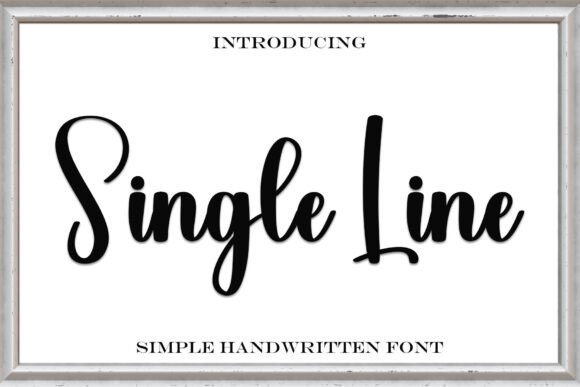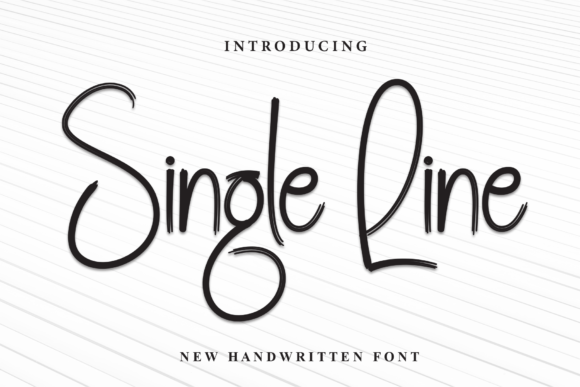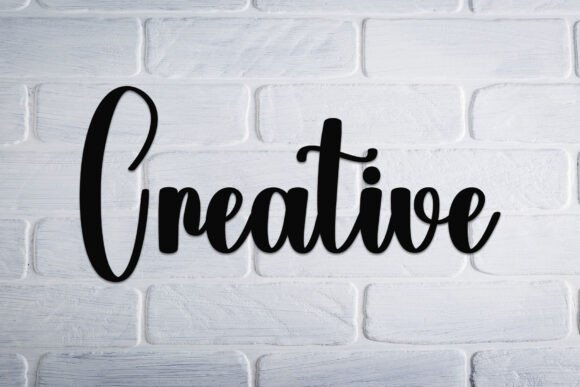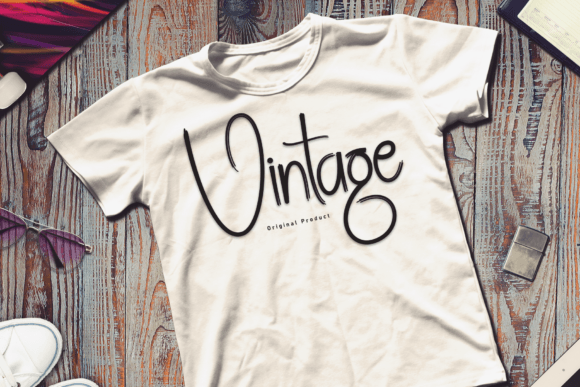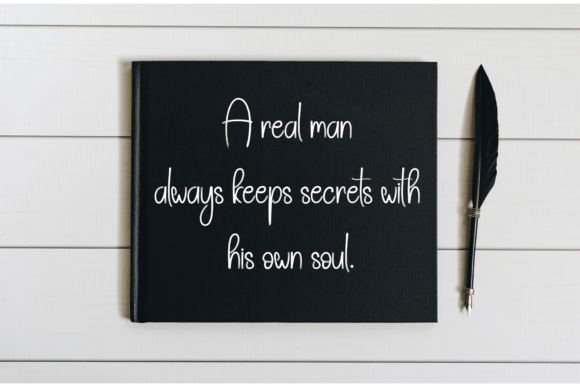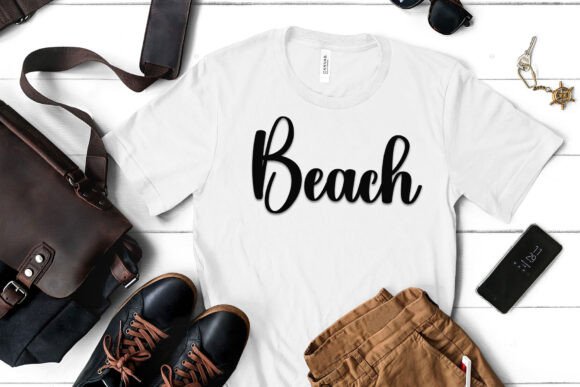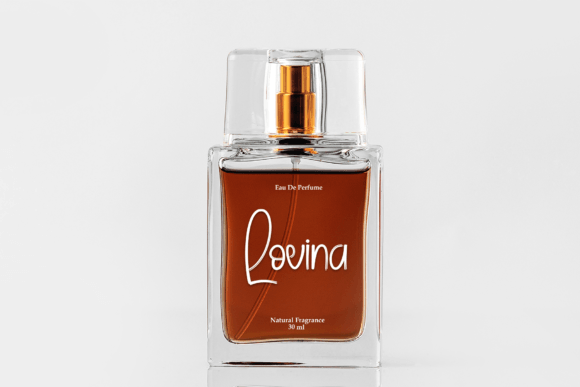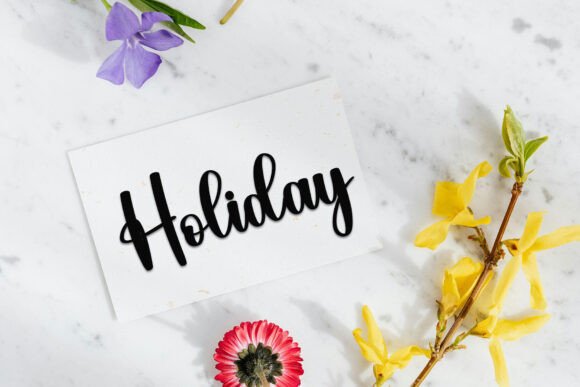
Single Line Font
About the Single Line Font
Get ready to be inspired by Single Line Font, a fresh and dynamic typeface for modern creators. Single Line is a sweet and cursive handwritten font. This gentle font will look gorgeous on a variety of design ideas. It will add a joyful and romantic touch to each of your projects! Perfectly fit for branding, logo, wedding things, greeting cards, fashion, lookbook, marketing promotion, and any time you want your design to look fancy and elegant but still casual.
Single Line Font Usage Examples
Single Line Font Example